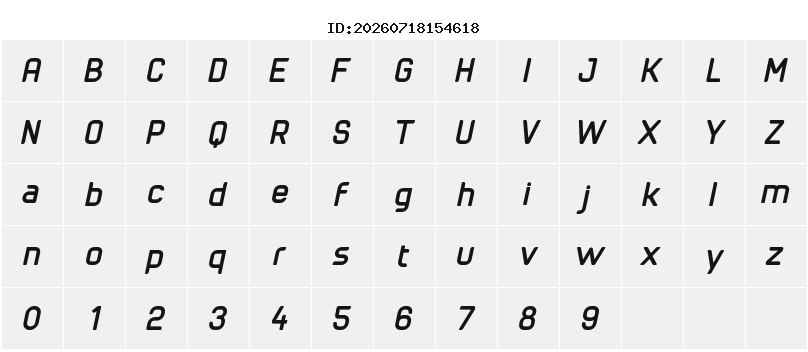
cuyabra Preview
• Font Name: cuyabra
• Font Style: bold oblique
• Font ID: NstorJairoDelgadoGiraldo: cuyabra bold oblique: 2016
• Full Font Name: cuyabra bold oblique
• PostScript Name: cuyabra-boldoblique
• Character Count: 171
• Designer: NÈstor Jairo Delgado Giraldo
• Manufacturer: NÈstor Jairo Delgado Giraldo
About cuyabra.otf
cuyabra.otf is a modern, elegant sans-serif font designed for ultimate readability and visual harmony. Perfect for branding, headlines, web design, and print materials.